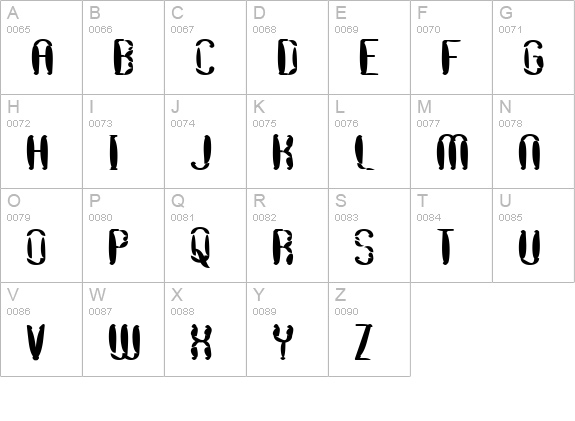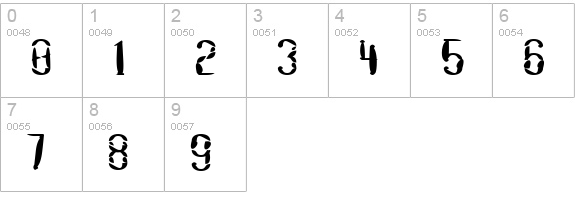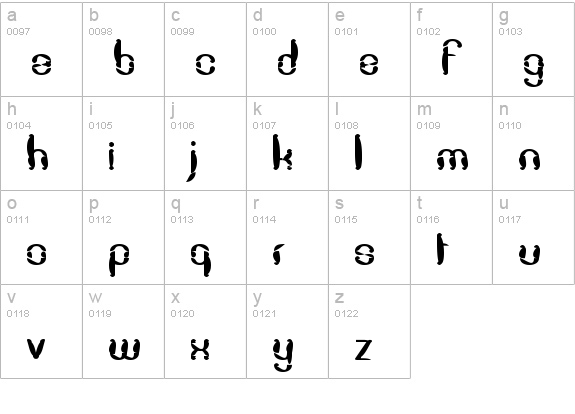
Dekon Font Details
Dekon font is a modern and stylish typeface that exudes sophistication and elegance. With its sleek lines and contemporary design, Dekon is perfect for a wide range of design projects, from branding to packaging to web design. Its versatility makes it a go-to choice for designers looking to make a statement with their typography. The best part? Dekon font is completely free to download at FontsMarket.com. This means you can add this stunning font to your collection without breaking the bank. Don't miss out on the opportunity to enhance your designs with the sleek and stylish Dekon font – download it today and let your creativity shine!